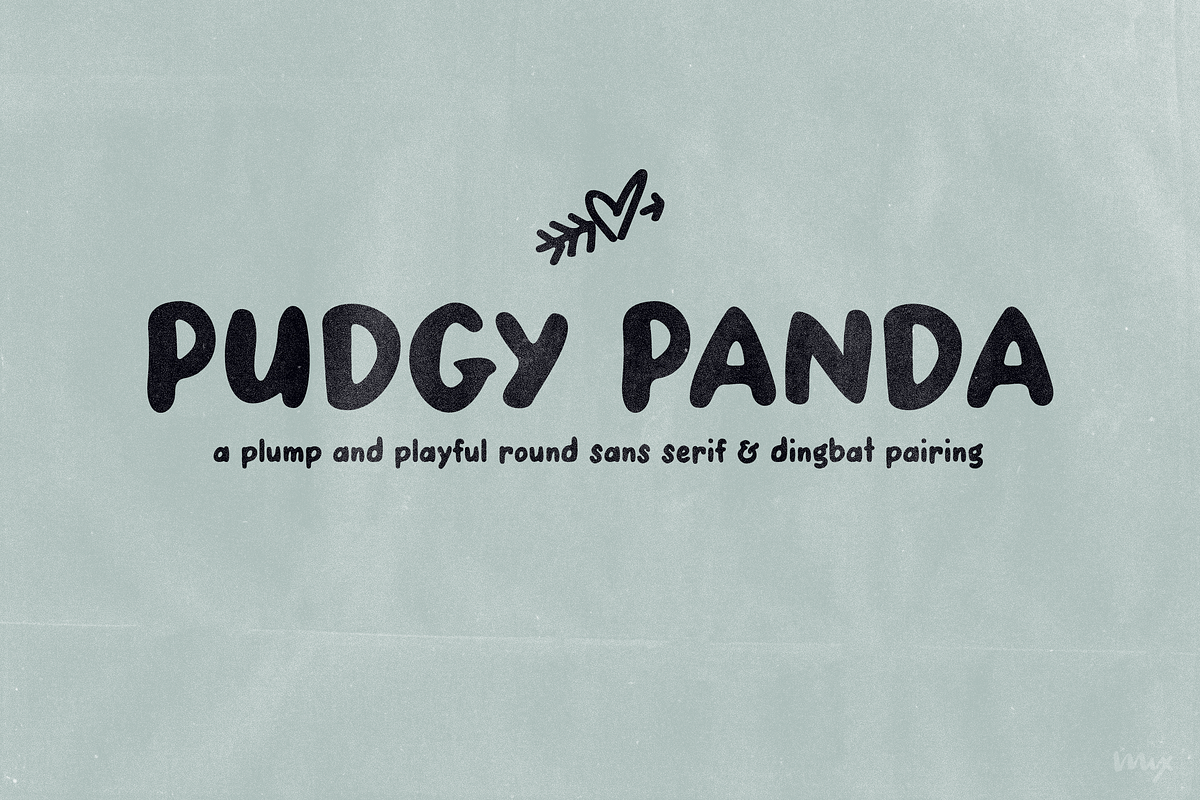
You must purchase this font for commercial use. However, you can download Pudgy Panda — A Sans & Dingbat Duo Free Download for testing purposes. Pudgy Panda is a playful and quirky font duo, combining a friendly sans-serif with an assortment of fun dingbats. Perfect for playful branding, children's designs, product packaging, greeting cards, and fun social media posts, this font brings personality and charm to your creative projects.
The sans-serif font features rounded, friendly letterforms that convey approachability, while the dingbats add extra flair with cute and whimsical illustrations that complement the main font. From adorable animals to decorative elements, the dingbats can be used to enhance any project with a lighthearted, engaging touch.